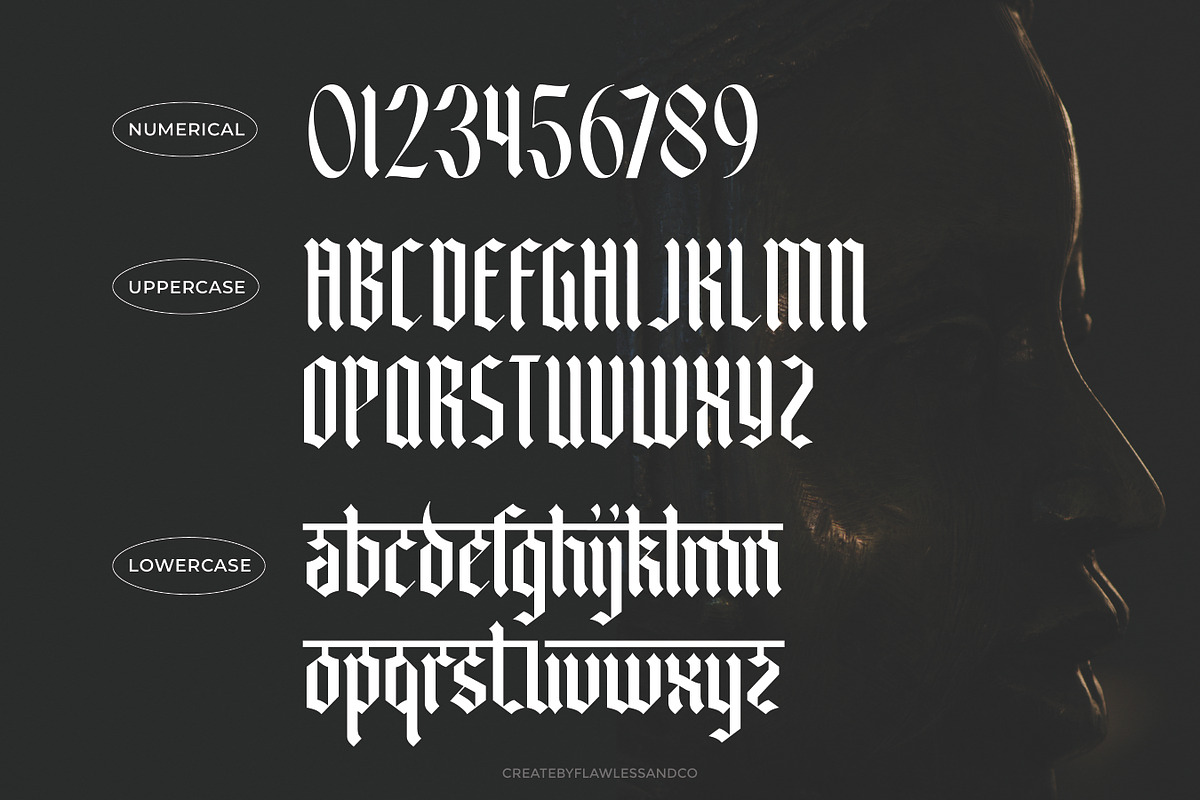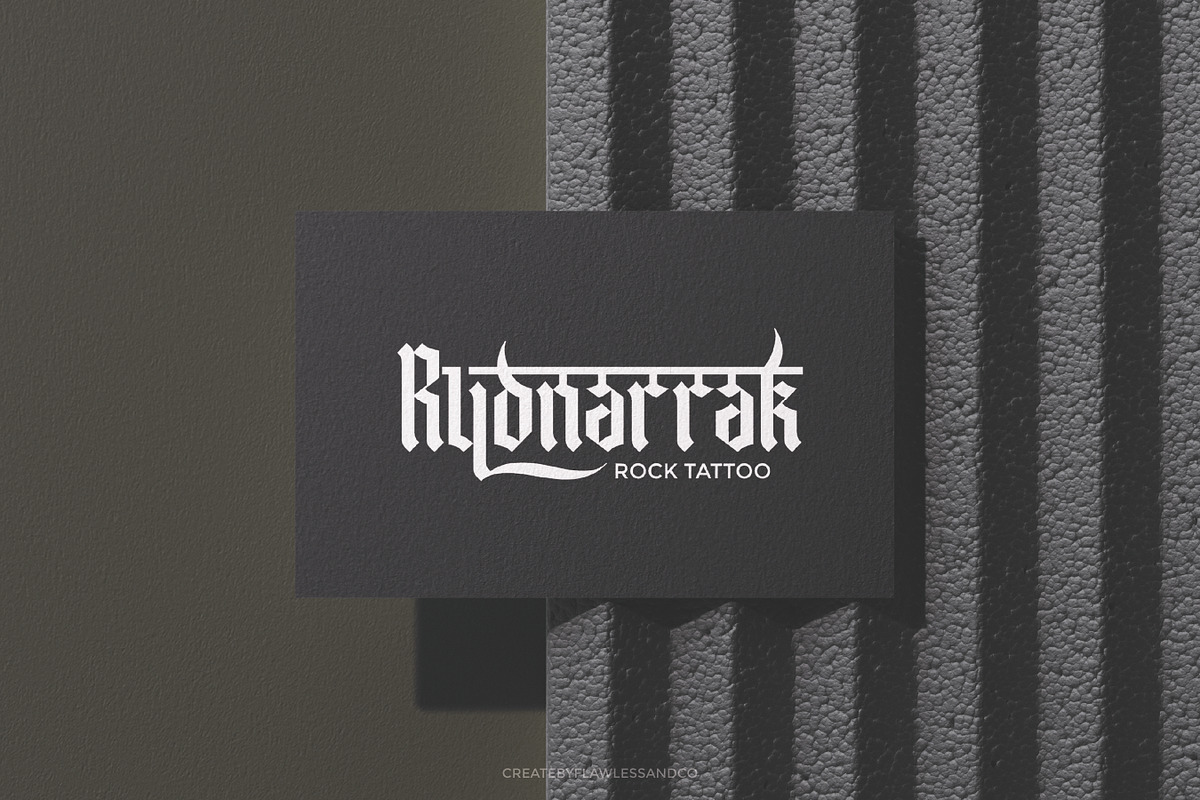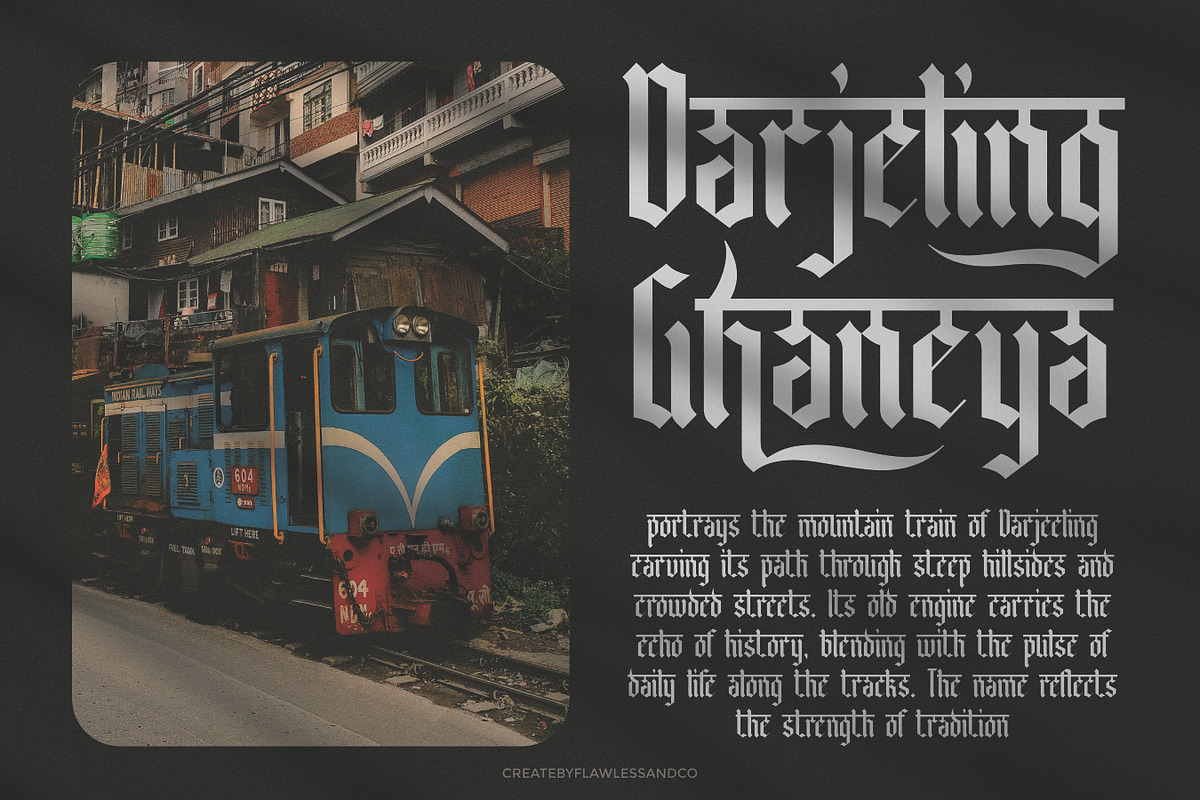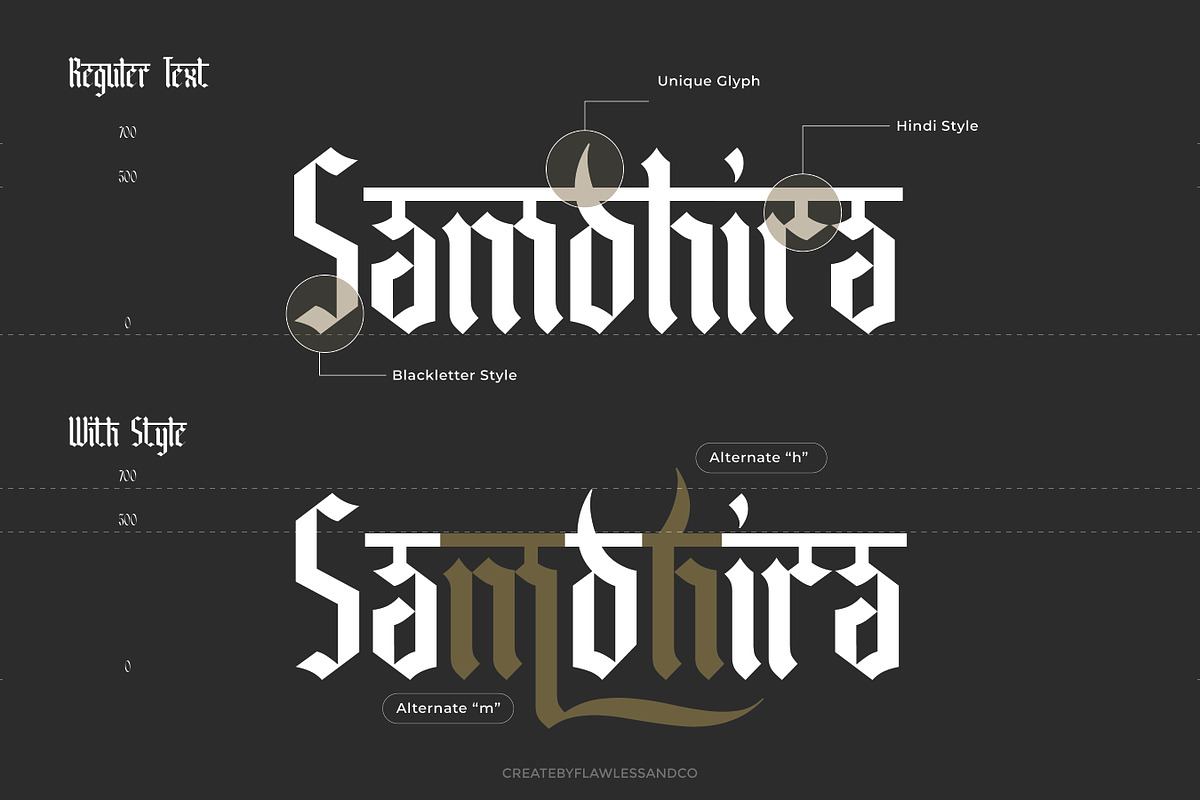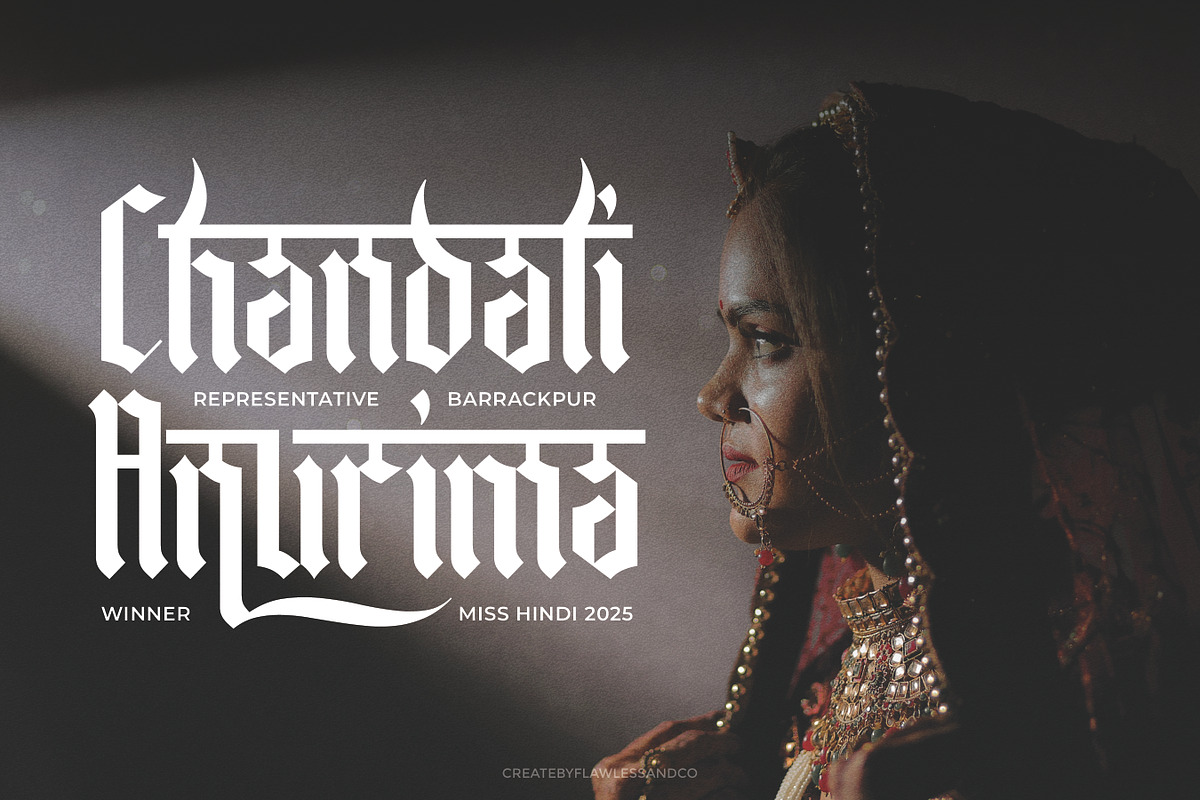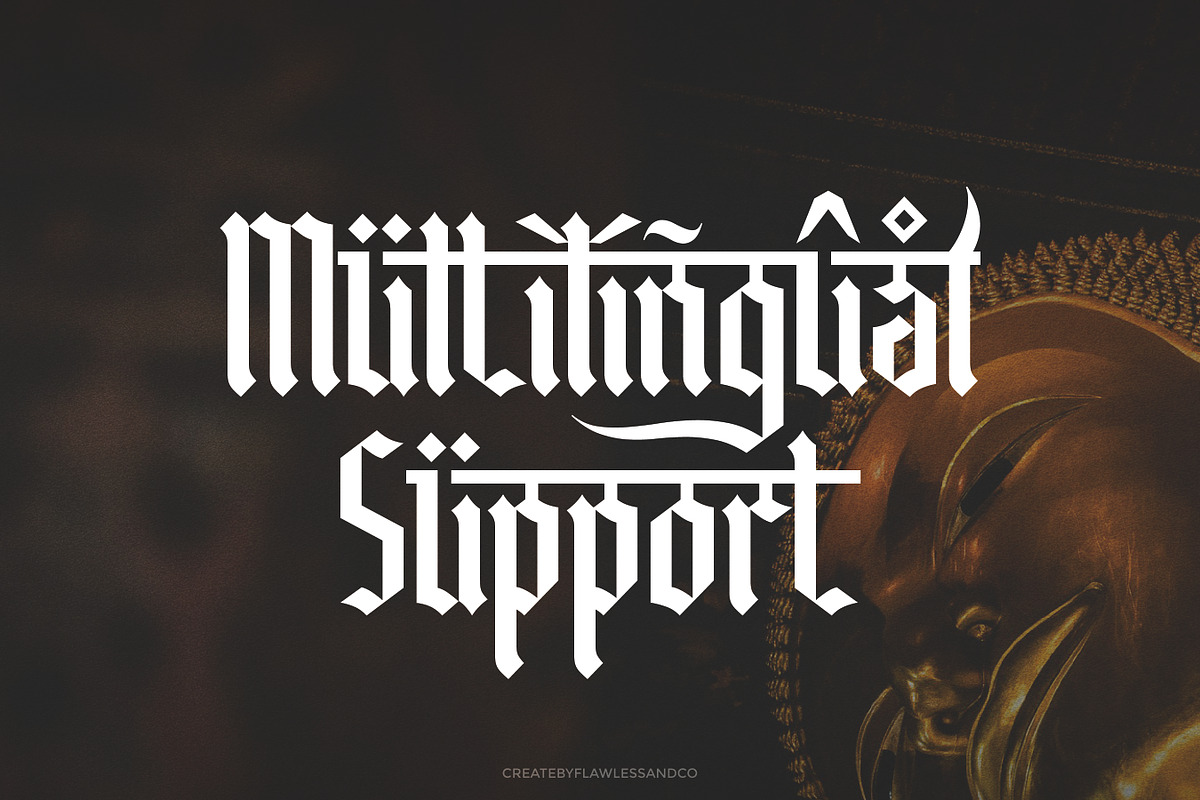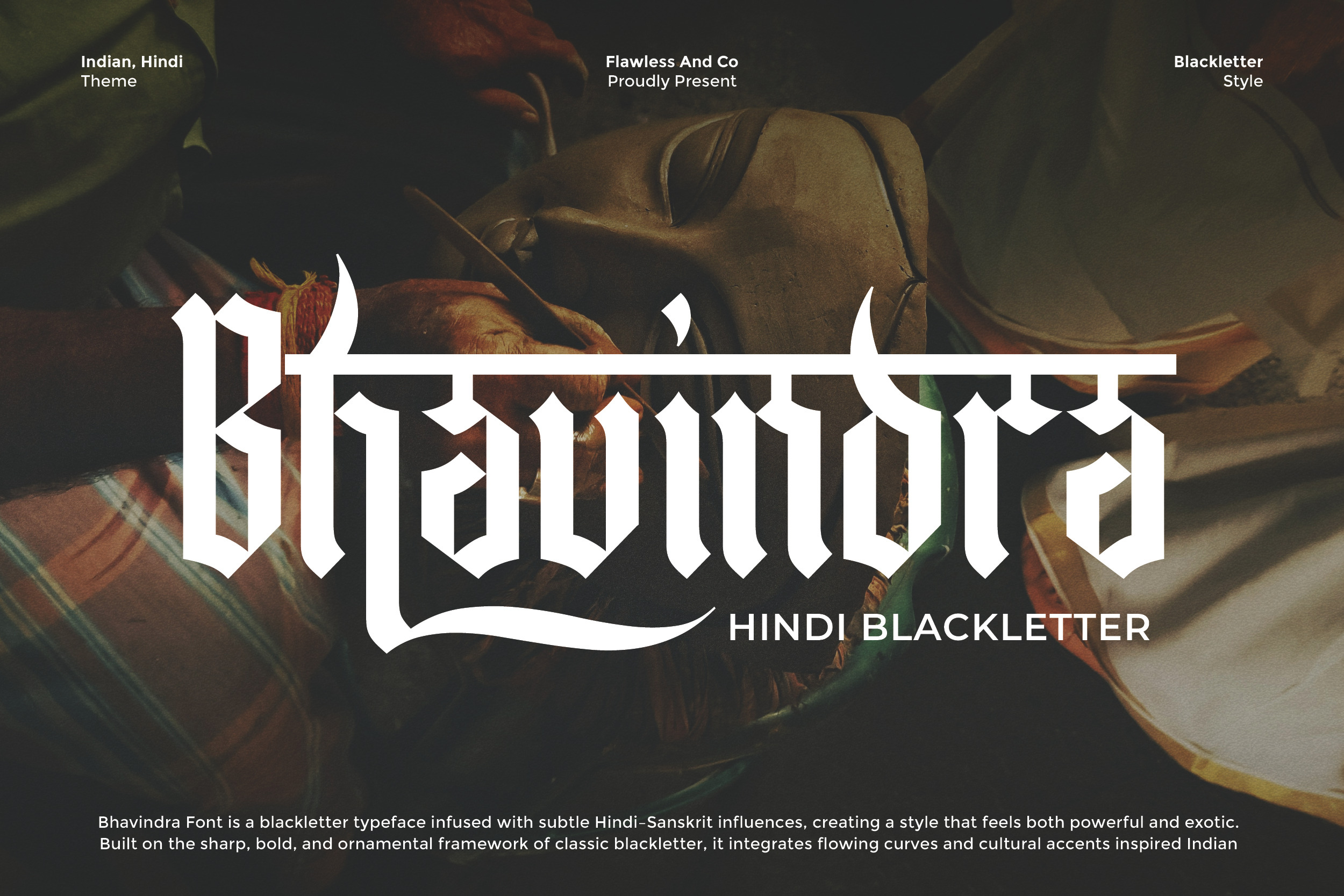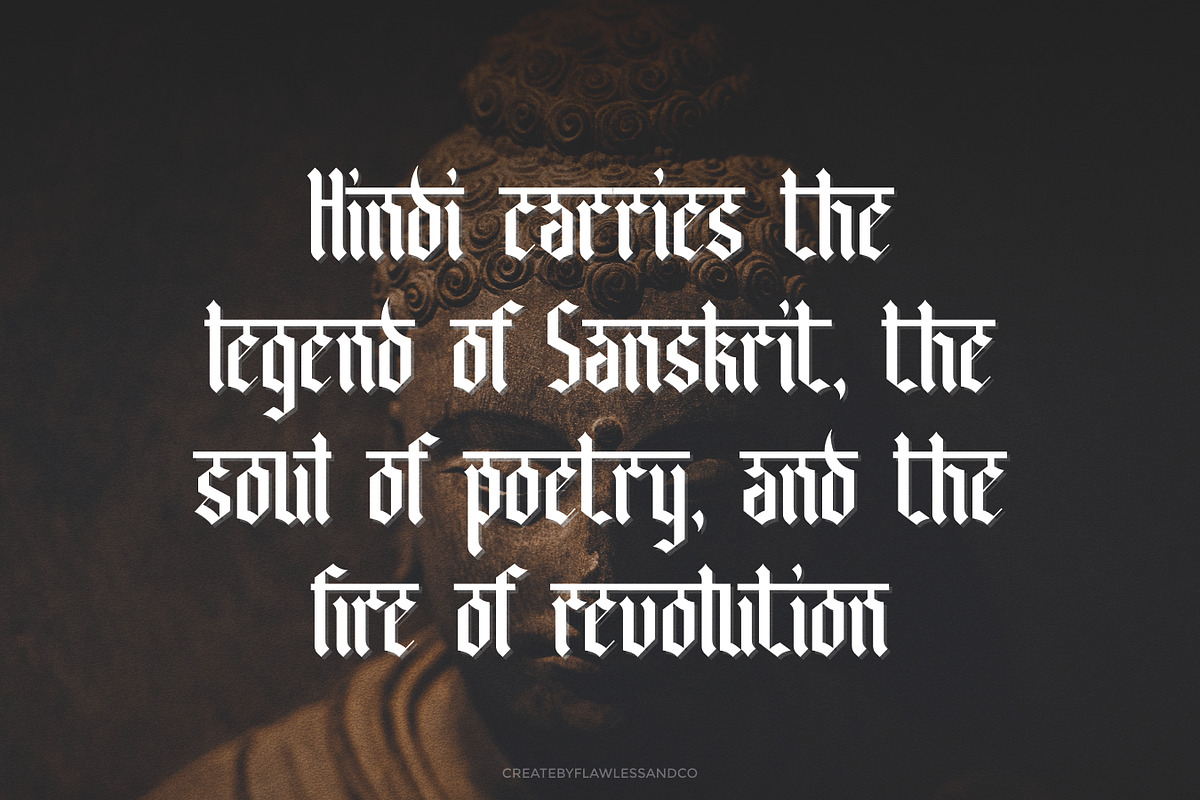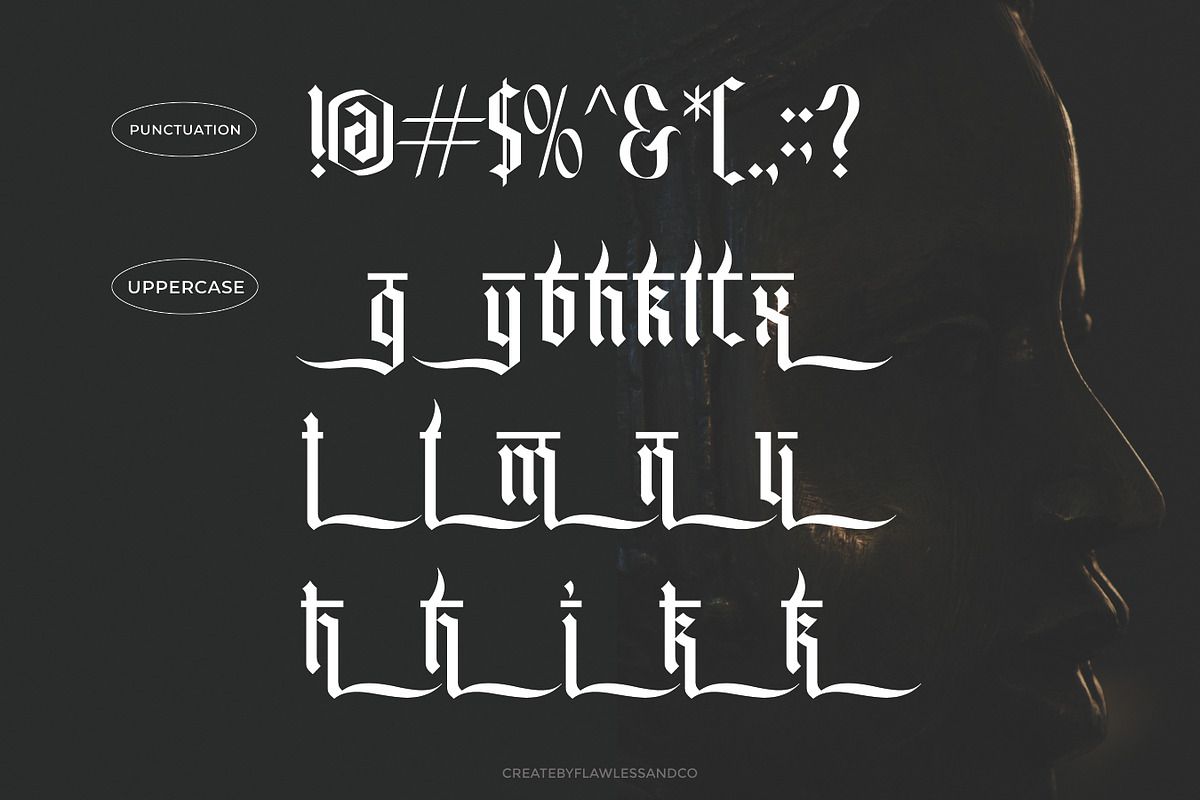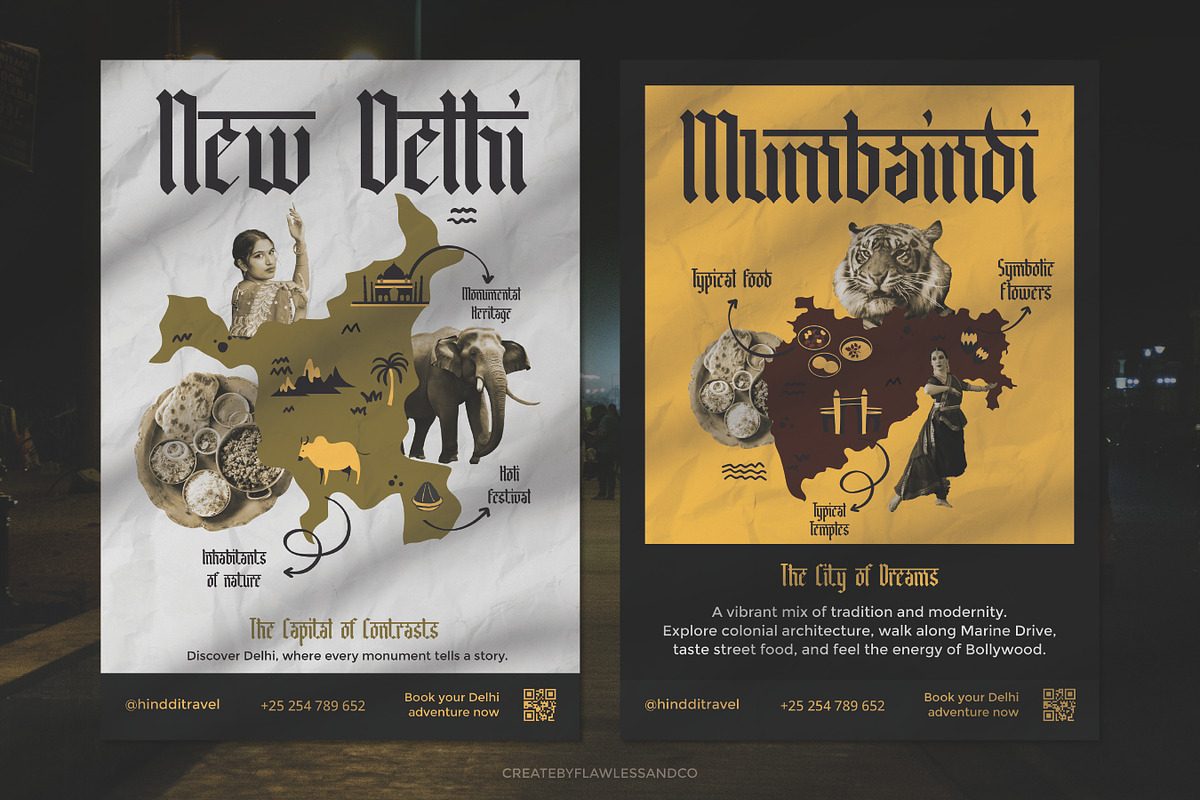
Bhavindra - Hindi Blackletter Font
Bhavindra is a Hindi-inspired blackletter font that merges the bold, ornamental framework of traditional blackletter with the cultural richness of Indian aesthetics. Infused with subtle Hindi–Sanskrit influences, it creates a style that is both powerful and exotic—perfect for projects that demand authority, mystique, and cultural depth. With its sharp edges, flowing curves, and distinctive accents, Bhavindra balances strength and elegance while maintaining high readability. This makes it an excellent choice for impactful branding, editorial headlines, poster designs, and cultural-themed projects that need a unique typographic voice.
Uppercase & Lowercase Alternates & Ligatures Numerals & Punctuation Multilingual Support
Who Should Use "Bhavindra ?
Bhavindra is designed for creatives, designers, and brands who want to merge bold tradition with modern impact. It’s perfect for:
- Graphic designers seeking a strong and unique typeface for cultural or artistic projects
- Branding professionals working on premium, heritage, or luxury identities
- Publishers and editorial teams looking for commanding headlines and decorative typography
A Must-Have Font for "Brand and Logo" Creators and Designers
Bhavindra is a must-have for brand and logo creators who want to craft designs with power, depth, and cultural uniqueness. Its Hindi-inspired blackletter style offers a bold presence that immediately stands out, making it ideal for logos, brand marks, and visual identities that require both strength and elegance.
Why Choose Bhavindra for "Brand and Logo" Projects?
Bhavindra stands out as the ideal choice for brand and logo projects because it blends the authority of classic blackletter with the cultural richness of Hindi-inspired details. Its sharp edges, bold strokes, and ornamental flow create a visual identity that feels both timeless and impactful.
Suitable For
- Brand identities and powerful logo designs
- Editorial layouts and magazine headlines
- Cultural, heritage, or event-themed posters
- Packaging and product labels with bold impact
- Music, gaming, or entertainment titles
- Merchandise, apparel, and tattoo-inspired designs
- Social media graphics and creative marketing materials
Its strong presence and Hindi blackletter style make Bhavindra a versatile choice for designers who want to combine tradition with modern creativity.